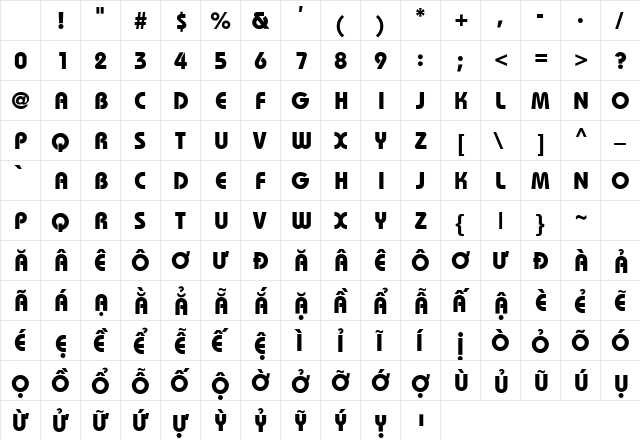
Complete .VnBahamasBH Bold glyph index. Displaying only characters natively supported by .VnBahamasBH Bold font.
.VnBahamasBH is a composed and adaptable typeface that performs quietly and consistently across a wide range of design contexts. Its bold stroke weight gives it real presence on the page.